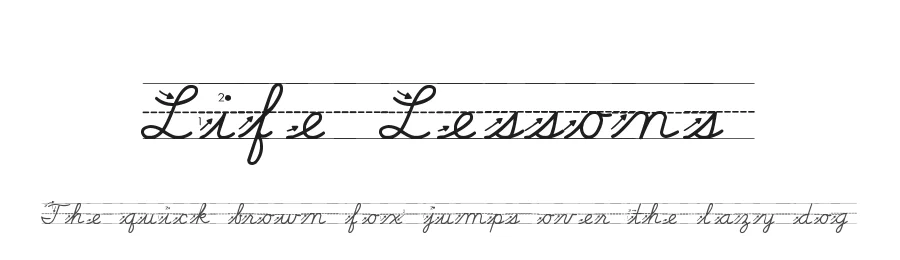
About School Script Dashed Font
School Script Dashed is a script & handwritten font designed by SourceNet. It includes 243 glyphs, a regular weight, TTF (TrueType) format, and 217 languages. School Script Dashed is free to download; check the license details on this page before commercial use. Script & handwritten fonts like School Script Dashed work best for wedding invitations, greeting cards, signatures, and elegant branding.
School Script Dashed Font is a script font that shines as a display or heading face. Pair it with a clean sans-serif or serif font for body text β the contrast creates a clear hierarchy while the two styles stay balanced and easy to read.
School Script Dashed Font
by SourceNet
School Script Dashed Font is a script handwritten typeface by SourceNet, ideal for logos, invitations, branding, and creative projects.